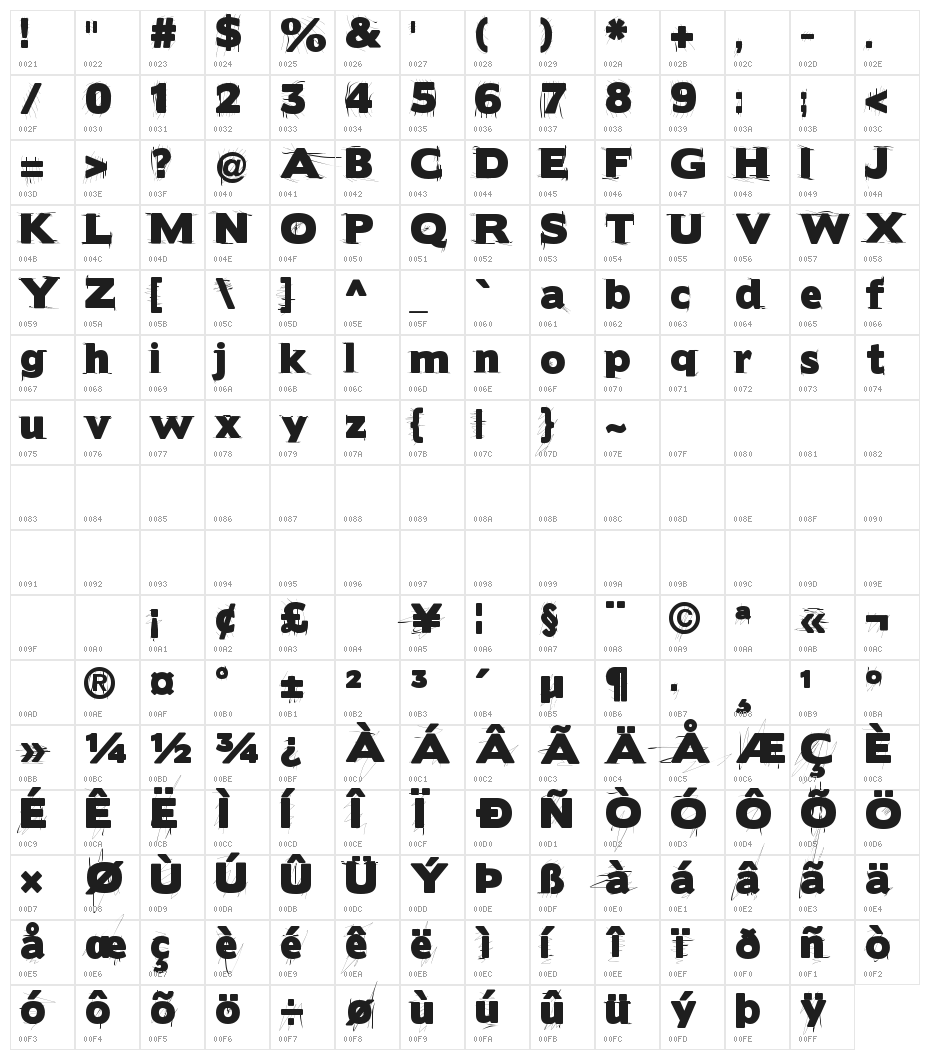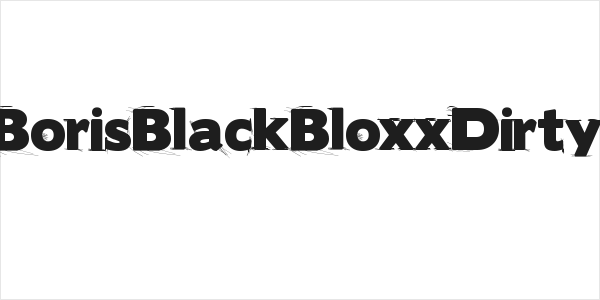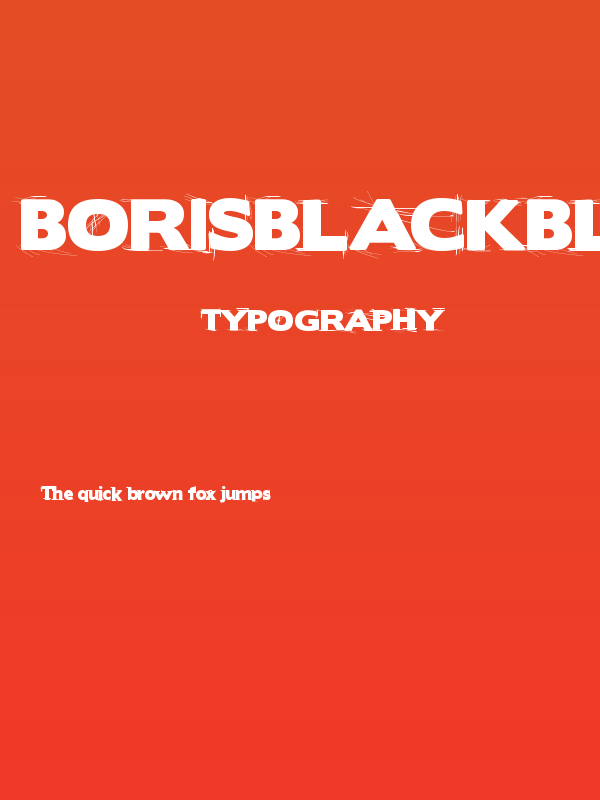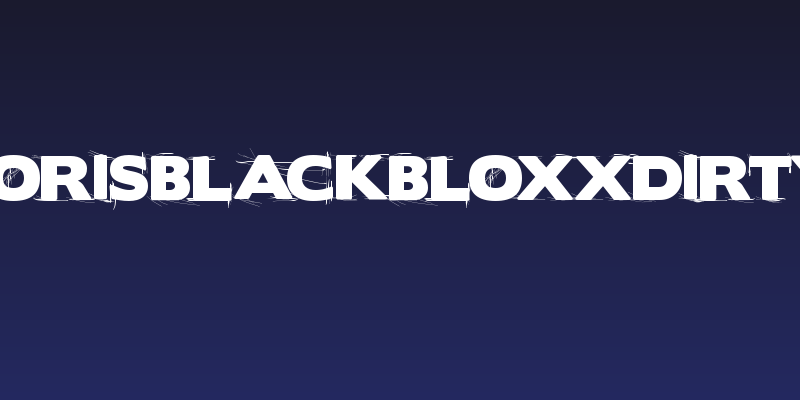
BorisBlackBloxxDirty Font
BorisBlackBloxxDirty Description
This font features a bold, impactful style with a distressed, grunge effect that adds a unique, edgy character to the text. The uppercase and lowercase letters are designed with thick strokes and a slightly uneven texture, giving them a rugged appearance. The numbers and special characters follow the same bold and distressed aesthetic, making the font suitable for projects that require a strong visual impact. The overall design is both modern and rebellious, perfect for capturing attention.
| Overall Style | Modern, Grunge |
| Proposed Projects | Ideal for posters, album covers, urban-themed designs, and branding that requires a bold statement. |